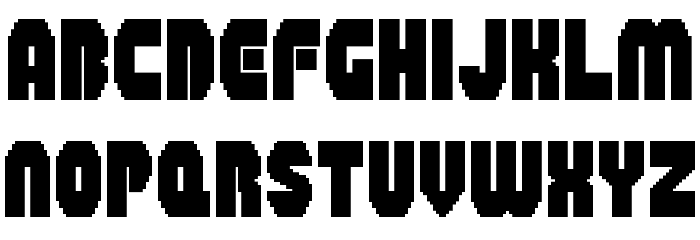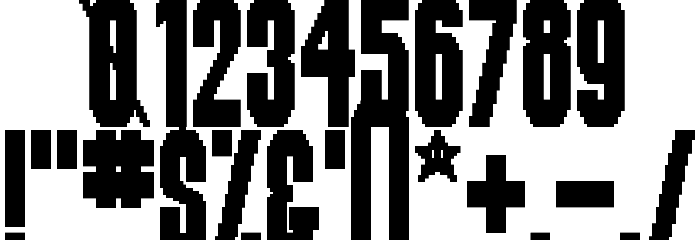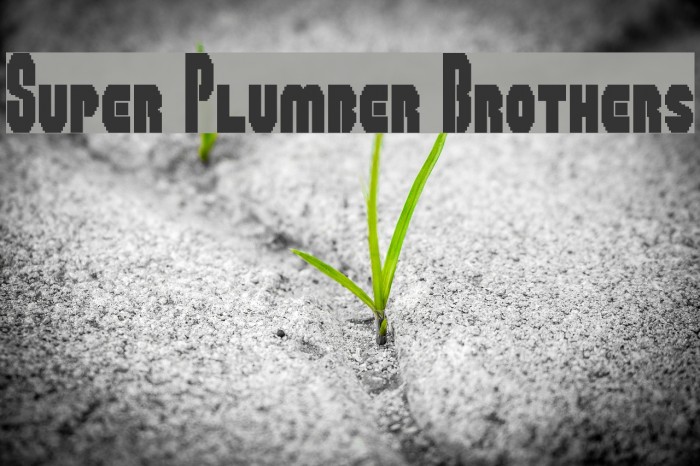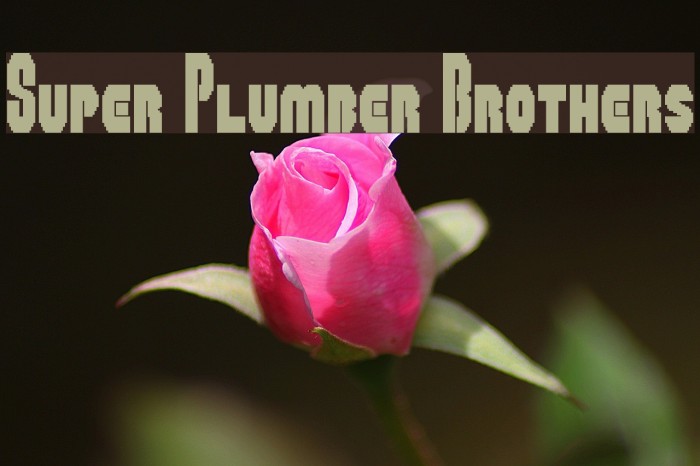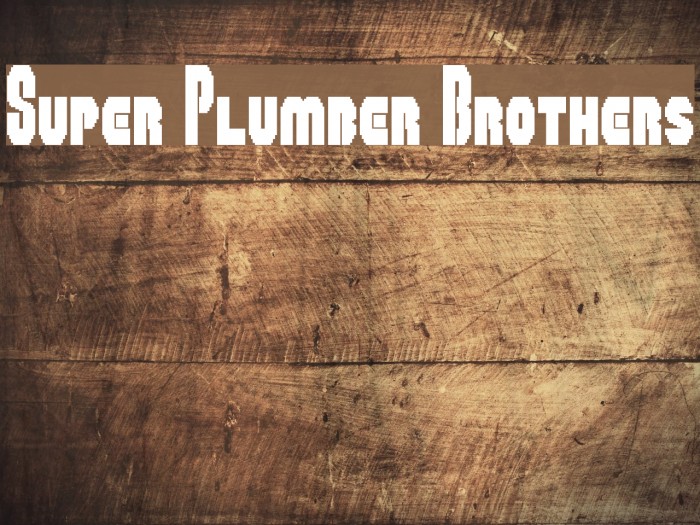
Super Plumber Brothers Font
This font features a bold, blocky design with a distinctly retro, pixelated aesthetic reminiscent of classic video games. The uppercase letters are tall and narrow, while the lowercase letters maintain a consistent width, creating a cohesive appearance. Numbers and special characters follow the same chunky style, ensuring uniformity across all glyphs. The font's geometric shapes and sharp angles give it a strong, impactful presence, making it ideal for attention-grabbing designs.
A bold, retro, pixelated font with a strong, blocky design.
- Proposed Projects: Perfect for video game designs, retro-themed posters, and digital art projects.
- Overall Style: Retro